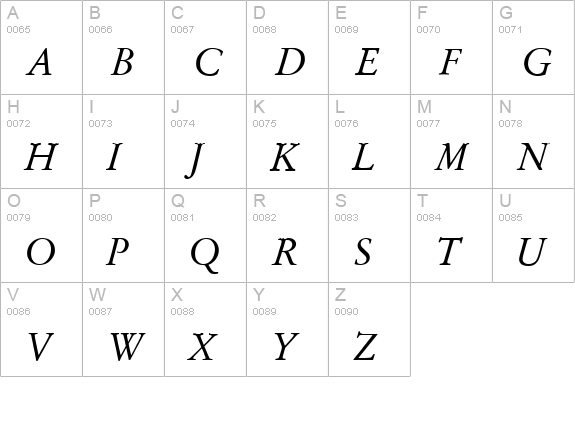
Garfeld-Original Italic Font Details
Garfeld-Original Italic is a distinctive, italic variant in the Garfeld typeface family \xE2\x80\x94 well suited to design and typography projects.
Garfeld-Original Italic font is a sleek and modern typeface that exudes sophistication and elegance. Its italicized design adds a touch of flair to any project, making it perfect for creating eye-catching designs. The flowing curves and sharp angles of Garfeld-Original Italic create a dynamic and captivating visual impact that is sure to impress. Best of all, Garfeld-Original Italic font is available for free download at FontsMarket.com. This means you can easily access this stunning font and use it in your projects without any cost. Whether you're designing a logo, creating a poster, or working on a website, Garfeld-Original Italic font is a versatile and stylish choice that will elevate your work to the next level. Download it now and unleash your creativity with this beautiful typeface.